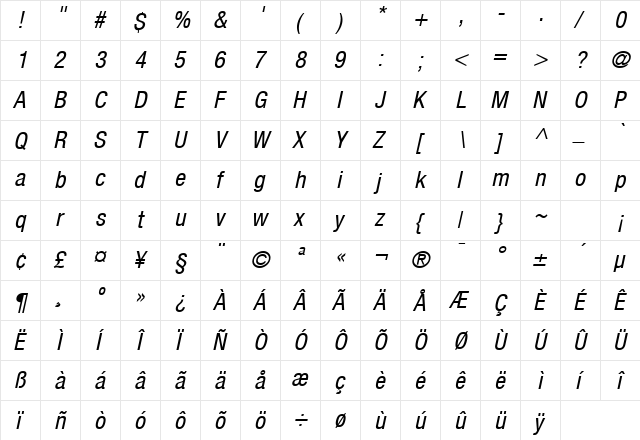
HeaveneticaCond5 OblSH Font Preview
HeaveneticaCond5 OblSH
Design Context for HeaveneticaCond5 Typeface
HeaveneticaCond5 takes a measured approach to typography — its balanced proportions and neutral character make it a reliable workhorse for both digital and print work. Its narrow stance lets it pack a punch even in space-constrained designs.